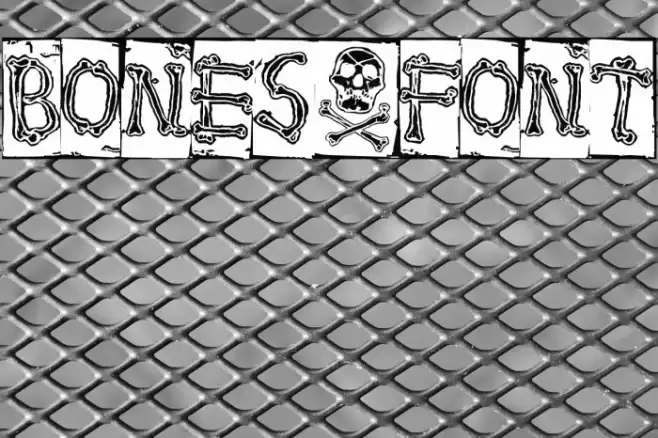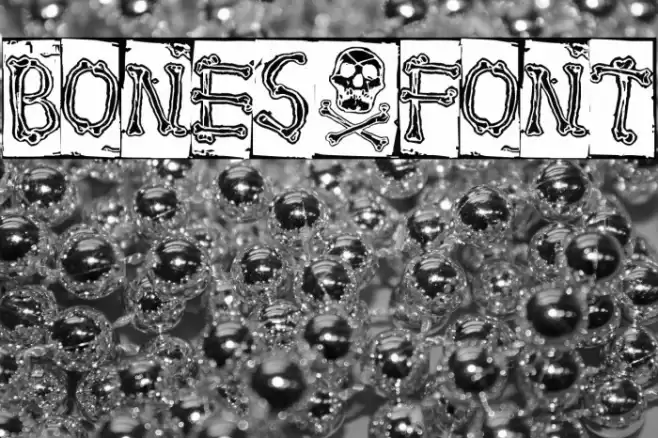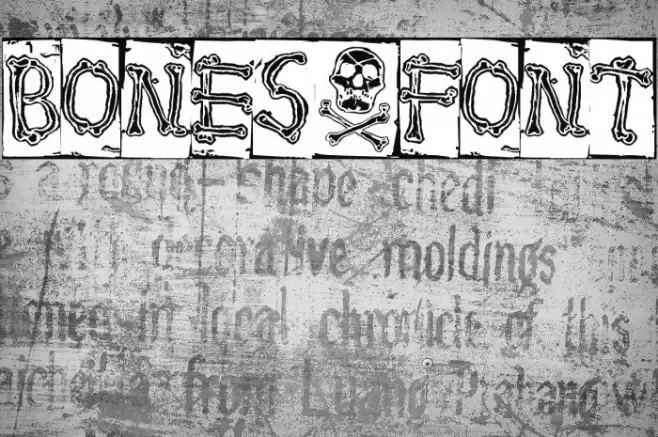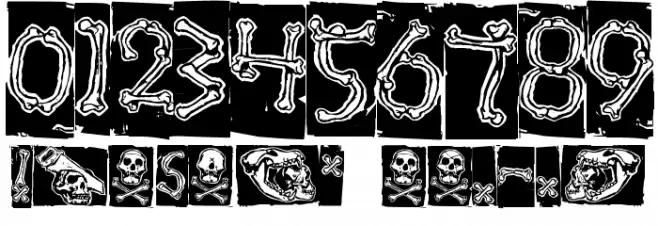
Bones Font
Bones Description
This font features a unique and playful design where each character is crafted to resemble bones. The letters and numbers are constructed with a skeletal motif, giving them a distinctive and somewhat eerie appearance. The style is bold and eye-catching, making it ideal for themes related to Halloween, horror, or anything requiring a spooky aesthetic. The characters are well-defined, with a consistent bone-like structure throughout the alphabet and numerals. Special characters include skulls and crossbones, enhancing the overall theme. This font is perfect for creative projects that aim to capture attention with its unconventional and thematic design.
A bold, bone-themed font ideal for spooky or Halloween projects from Decorative fonts.
- Proposed Projects: Perfect for Halloween invitations, horror movie posters, themed party decorations, and any project requiring a spooky or playful touch.